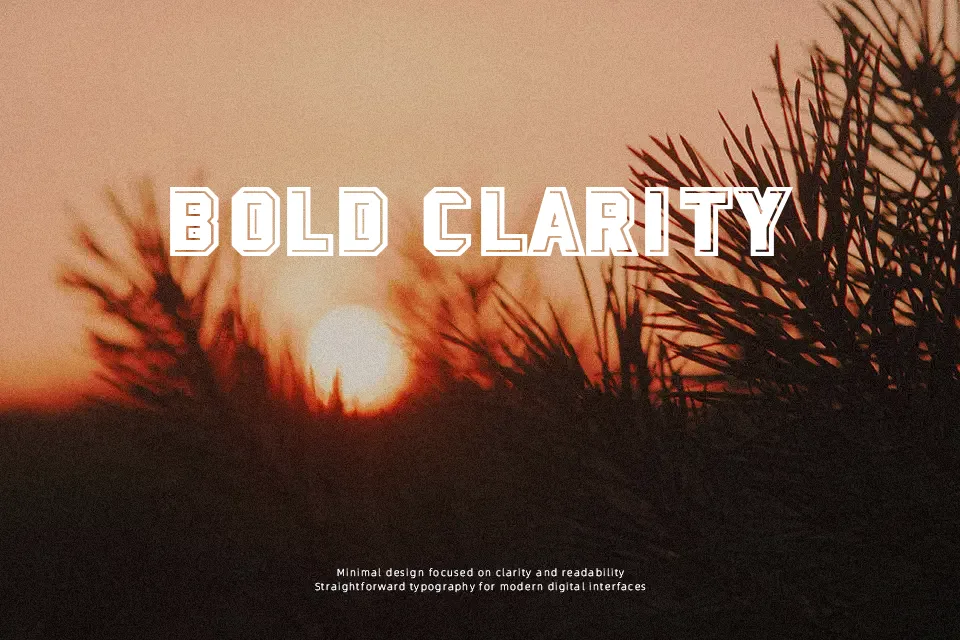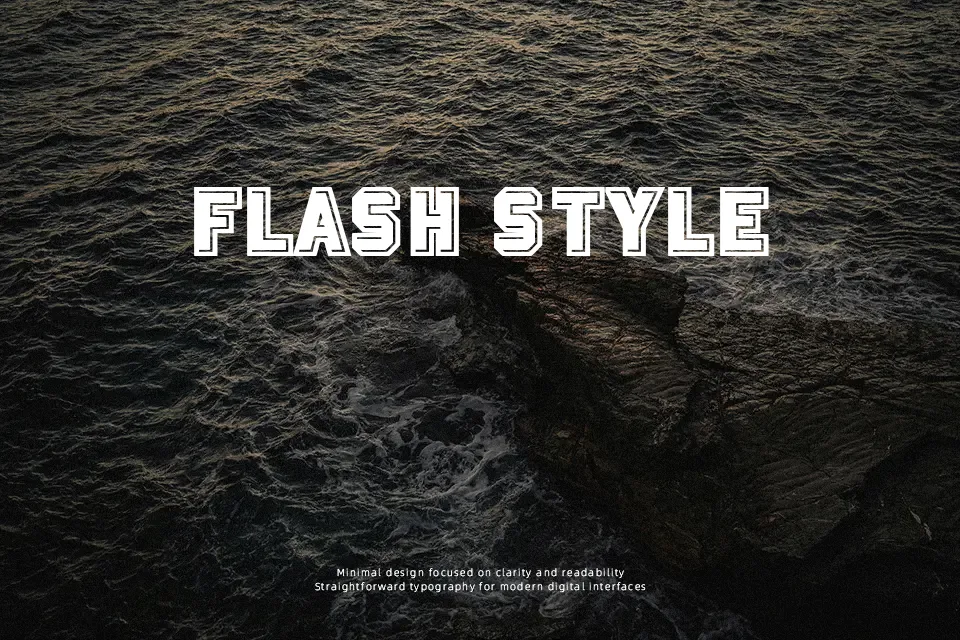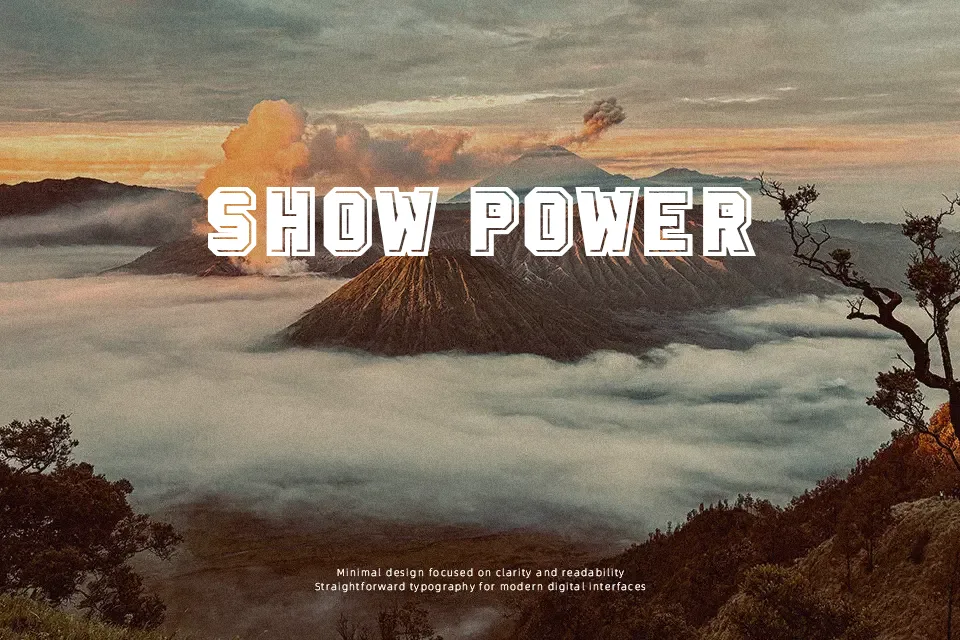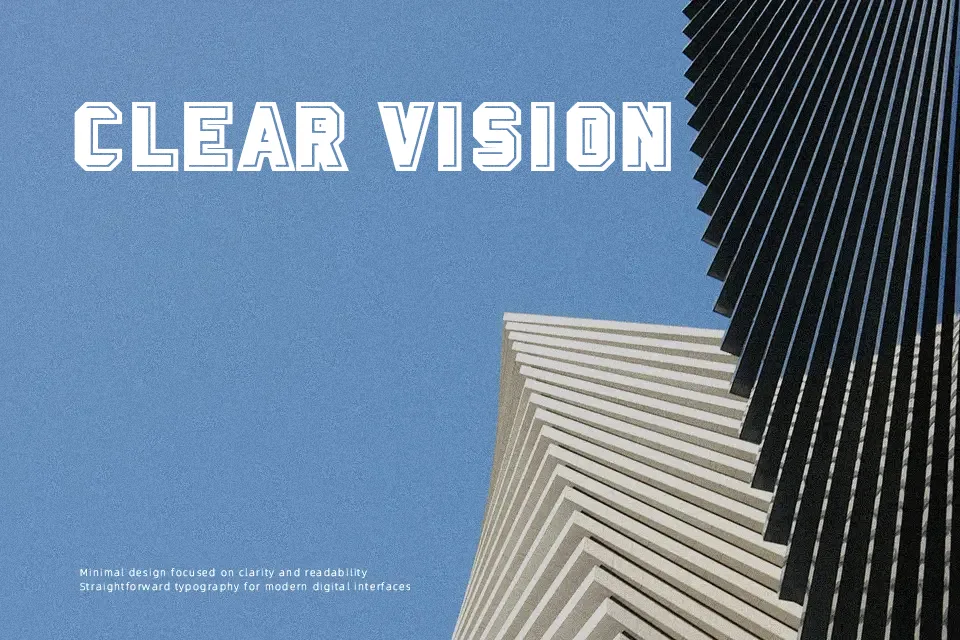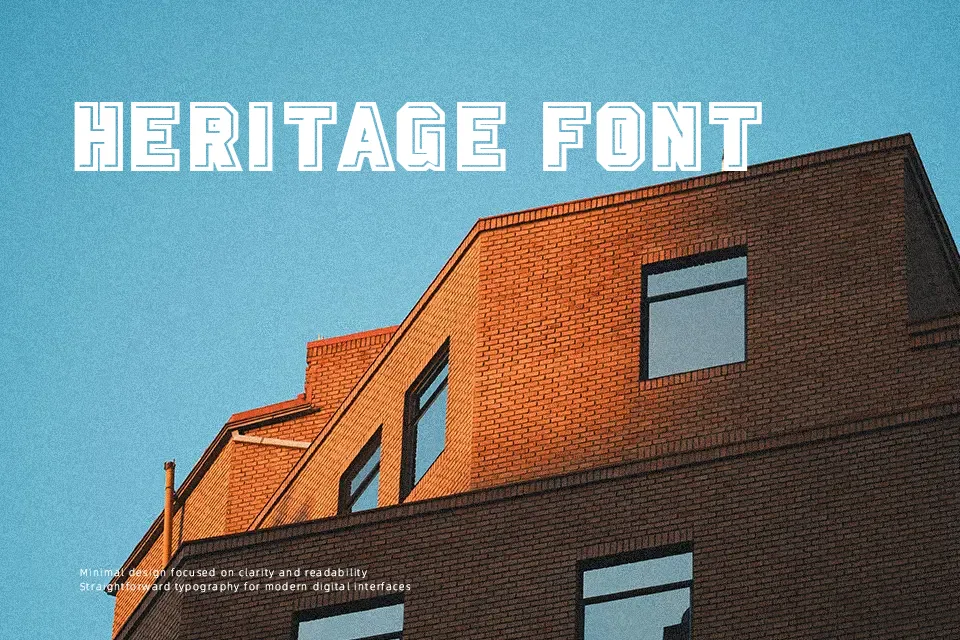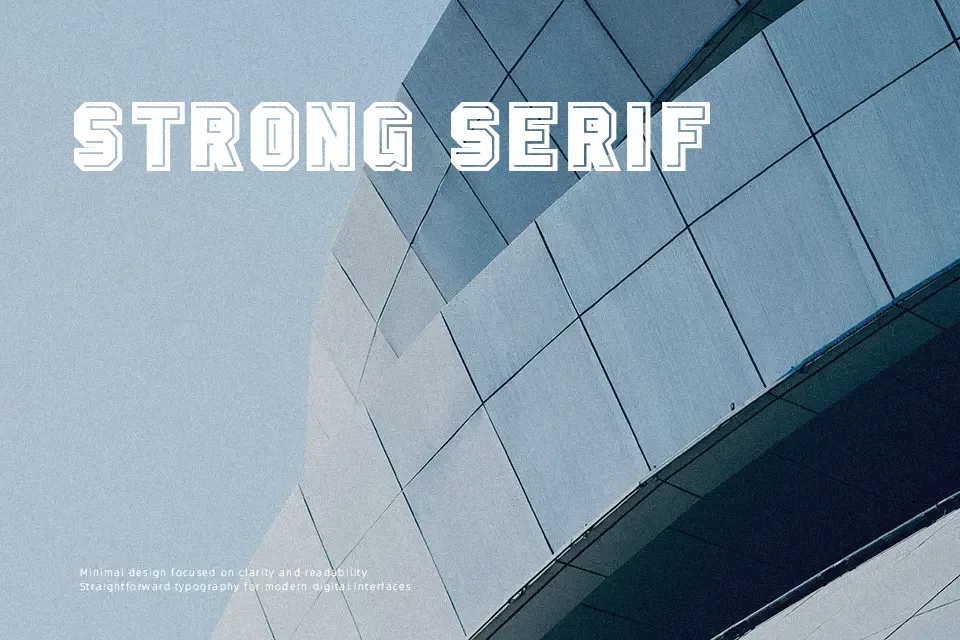
Spanish College Font
Spanish College Font uses heavy, sharply cut display letterforms with a collegiate character and a consistent uppercase-driven rhythm. Its thick strokes and angular details create a strong silhouette in logos, apparel graphics, posters, and short event headlines. Spacing appears controlled for impactful wordmarks rather than extended copy, while the substantial proportions retain visibility at larger sizes. The typeface is most effective when used for a few prominent words; its decorative construction becomes harder to read in small sizes or dense text. It works best as a headline face paired with a simpler text font.
Best For: sports team logos,college-style apparel,poster headlines,event signage
Perfect for headline, logo, and poster, with a bold and decorative style.